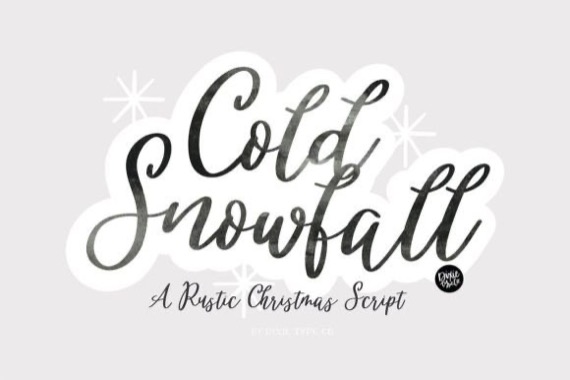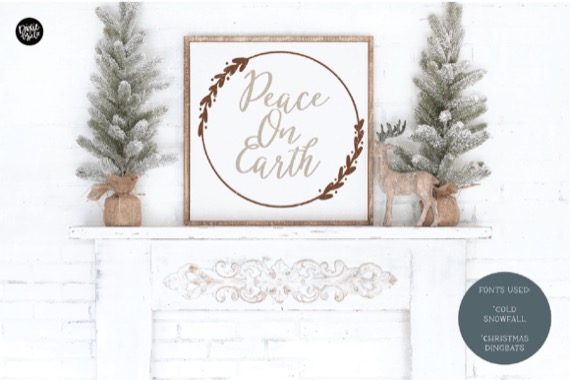
Cold Snowfall is a pretty winter script font that was created and released by Blushfontco. Cold Snowfall is a vintage script font. This font is great for holiday decor, cards, and farmhouse living.
Cold Snowfall Calligraphy Script Font
Designer, Publisher: Blushfontco